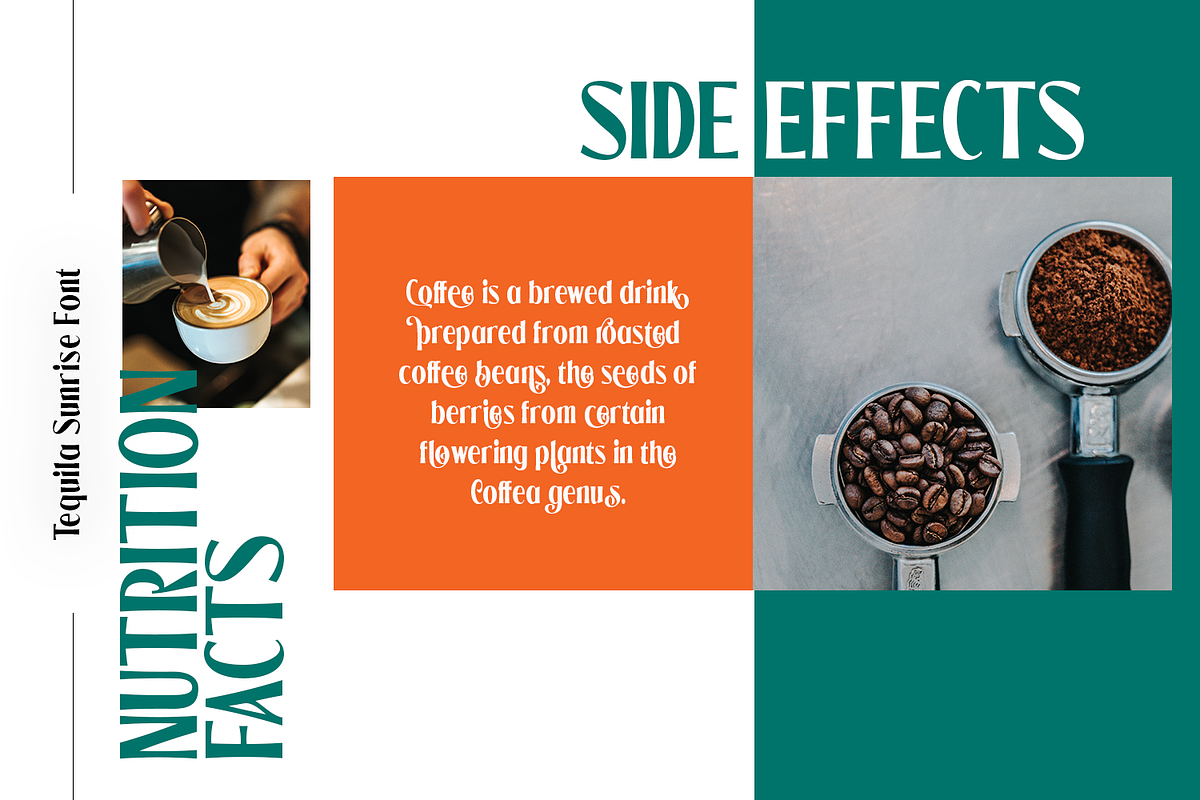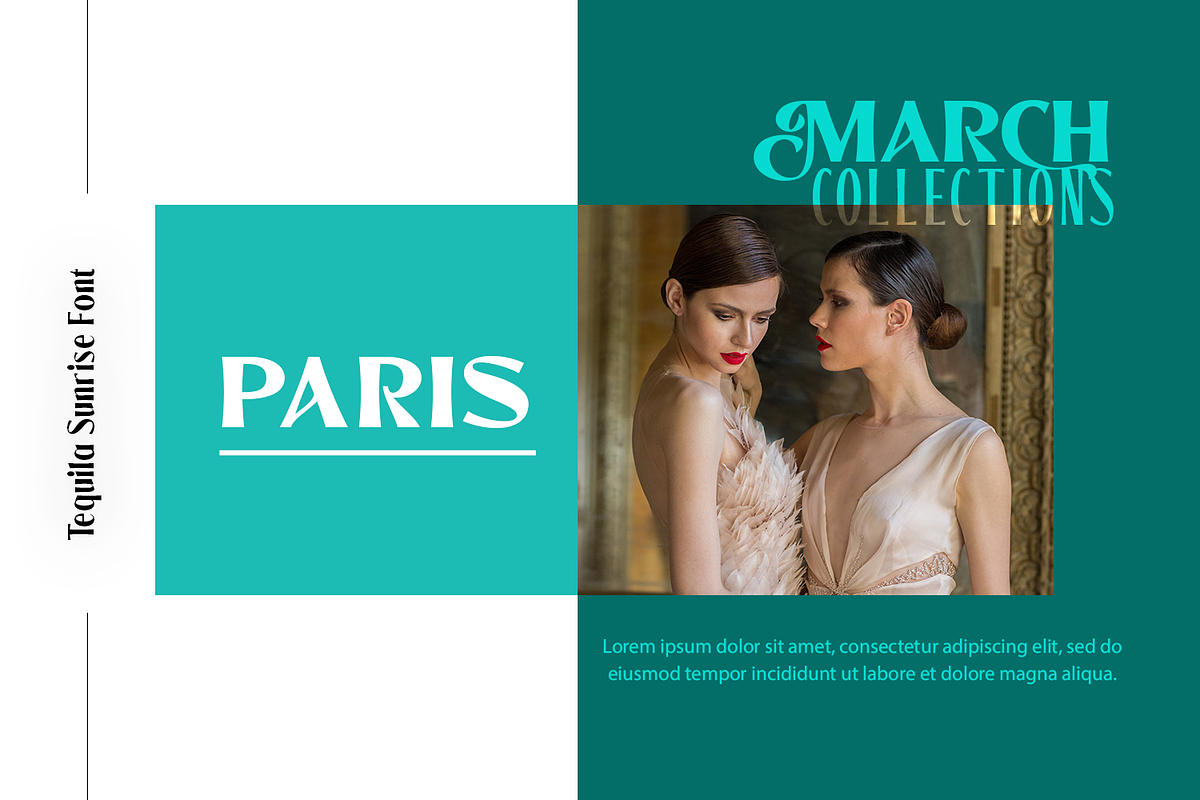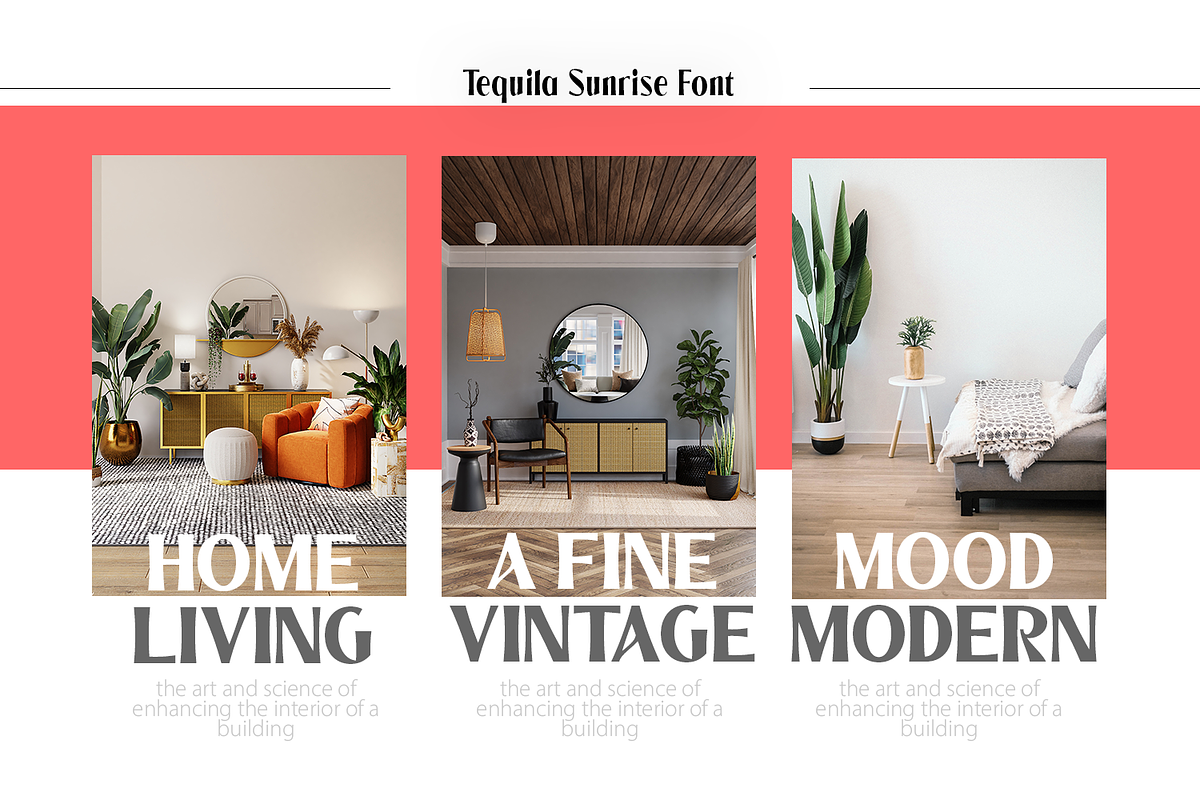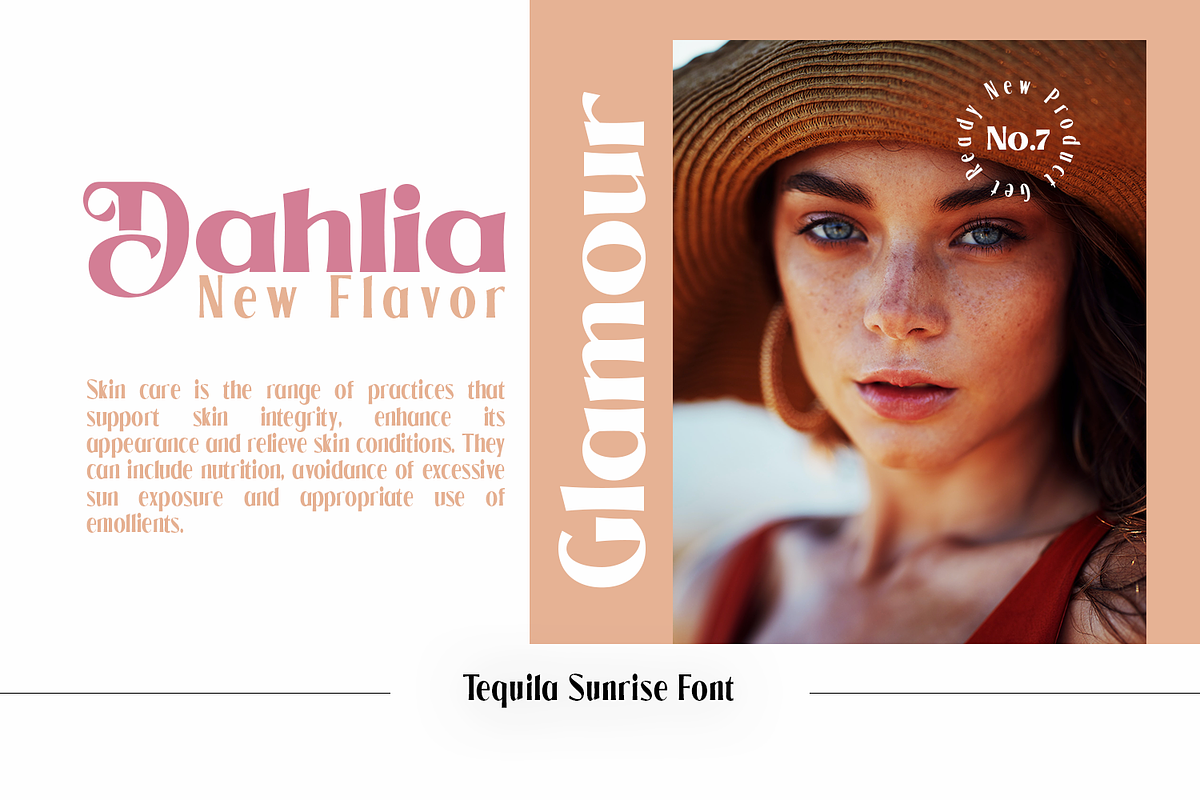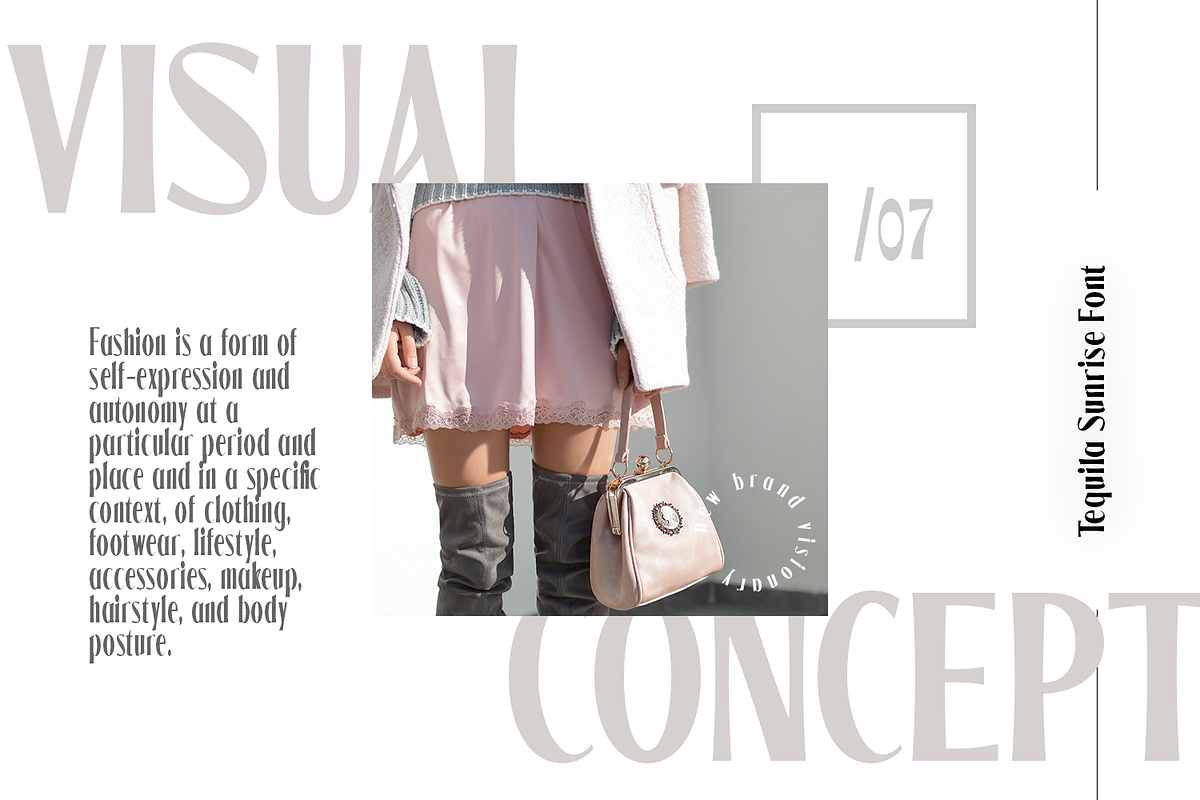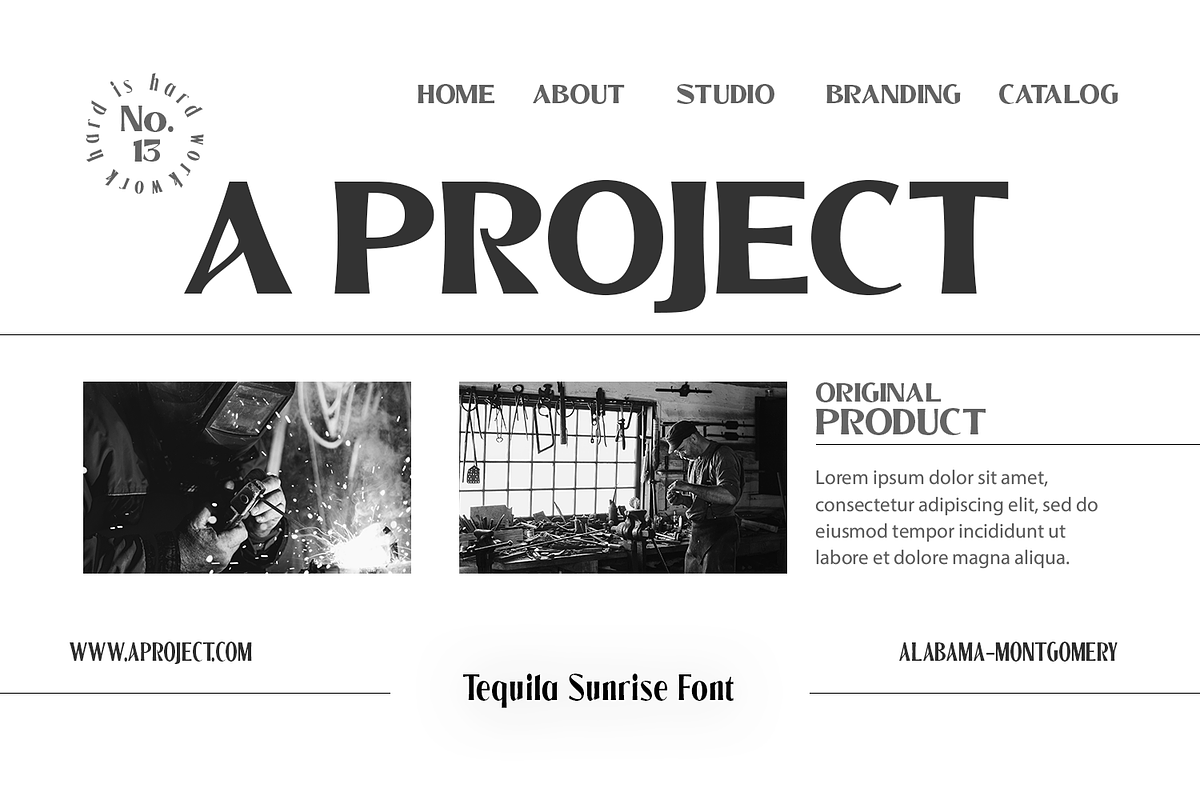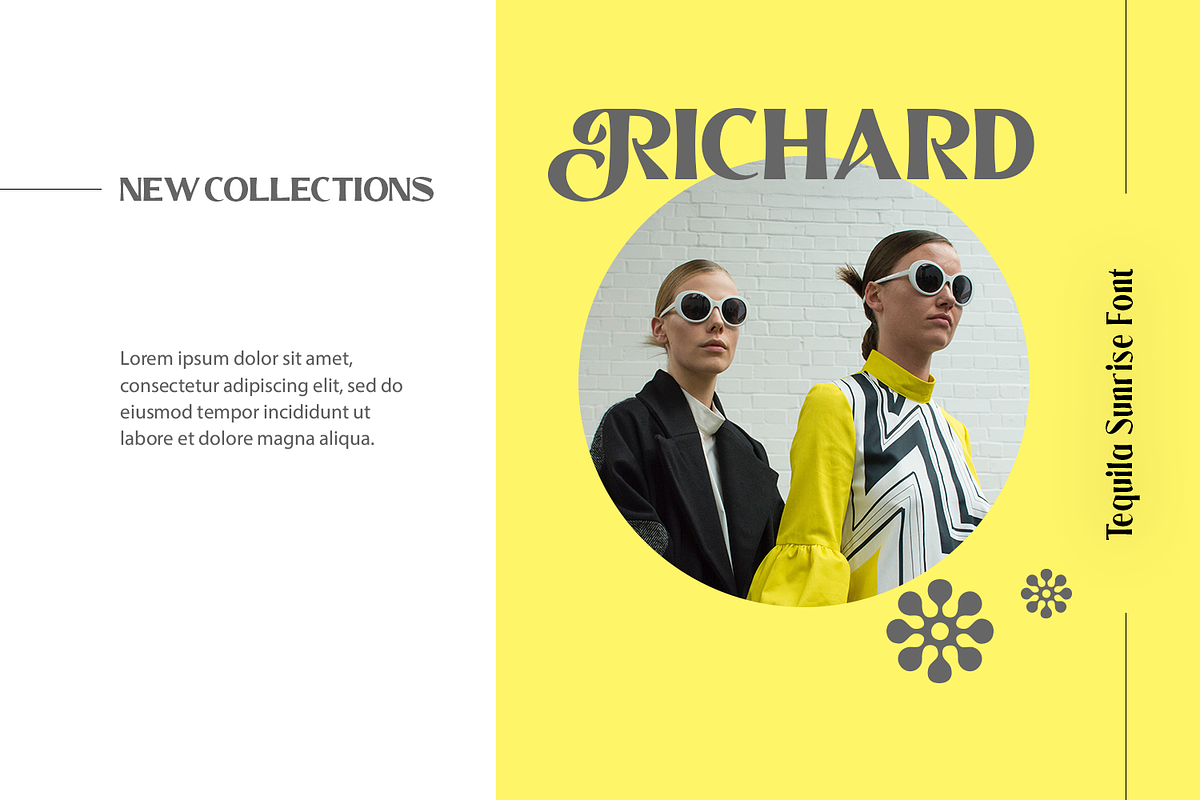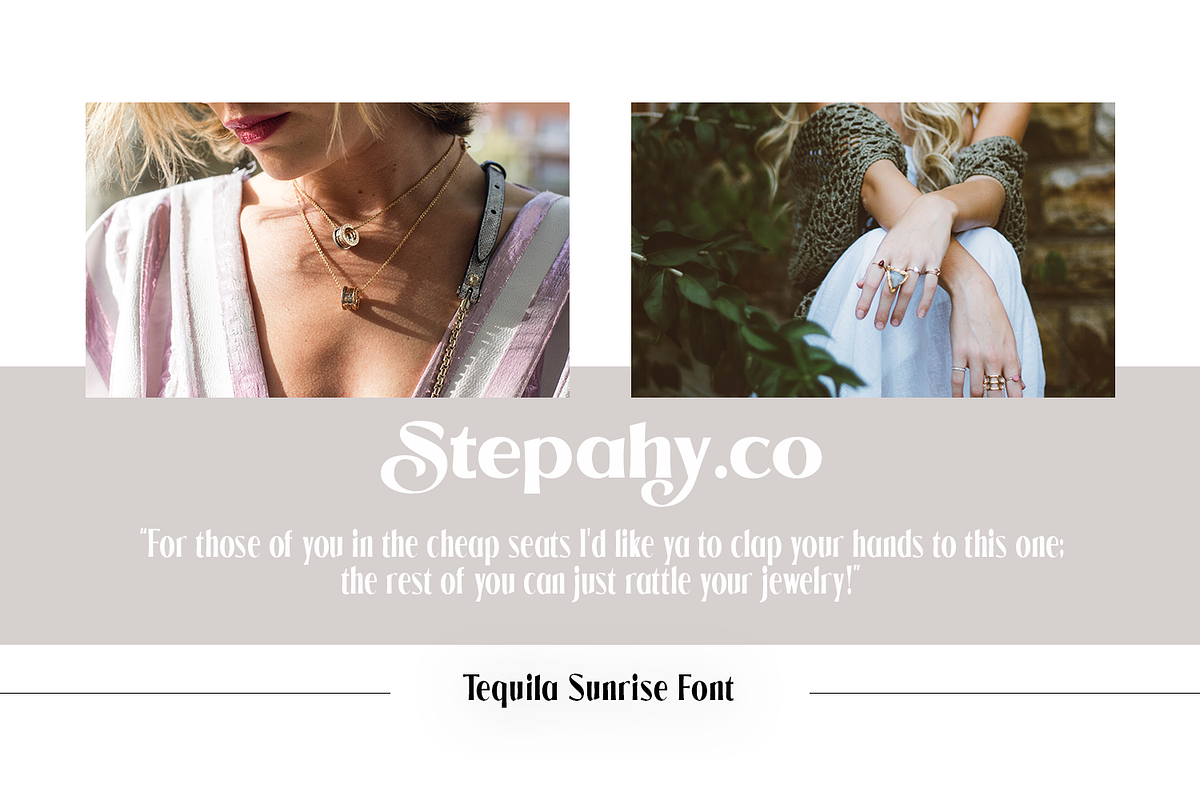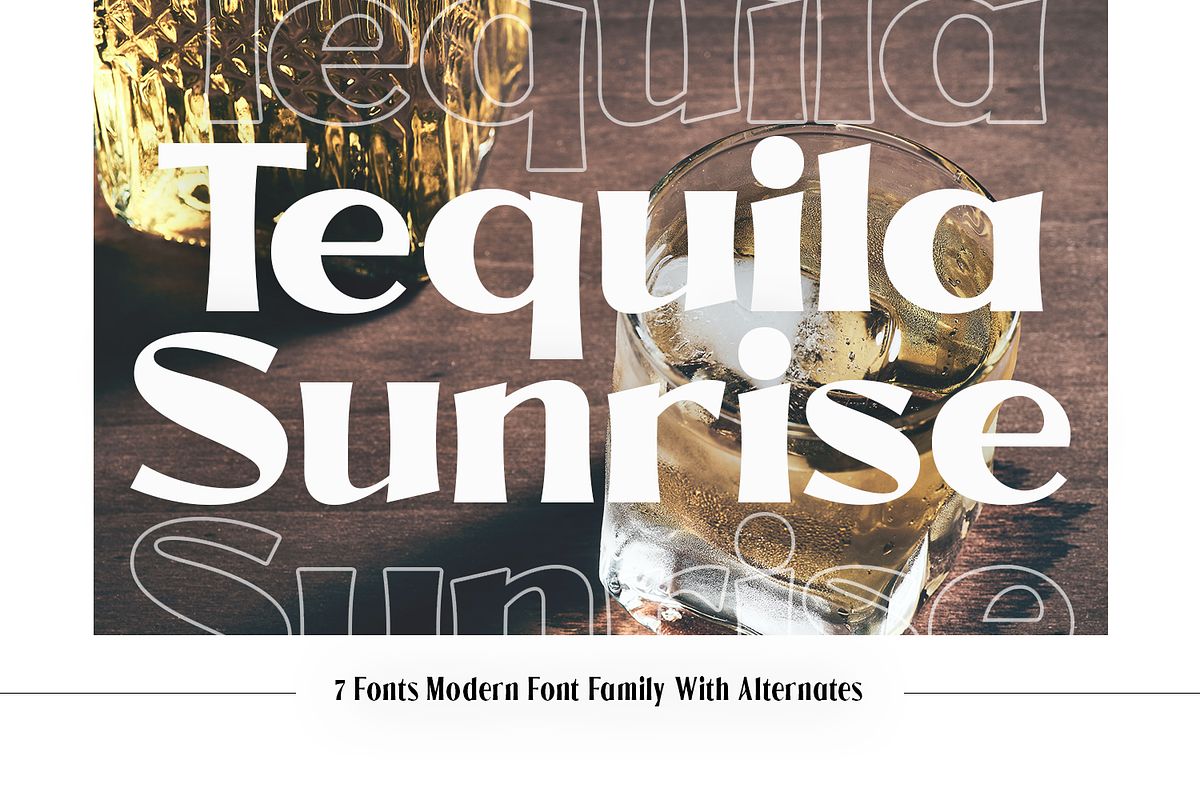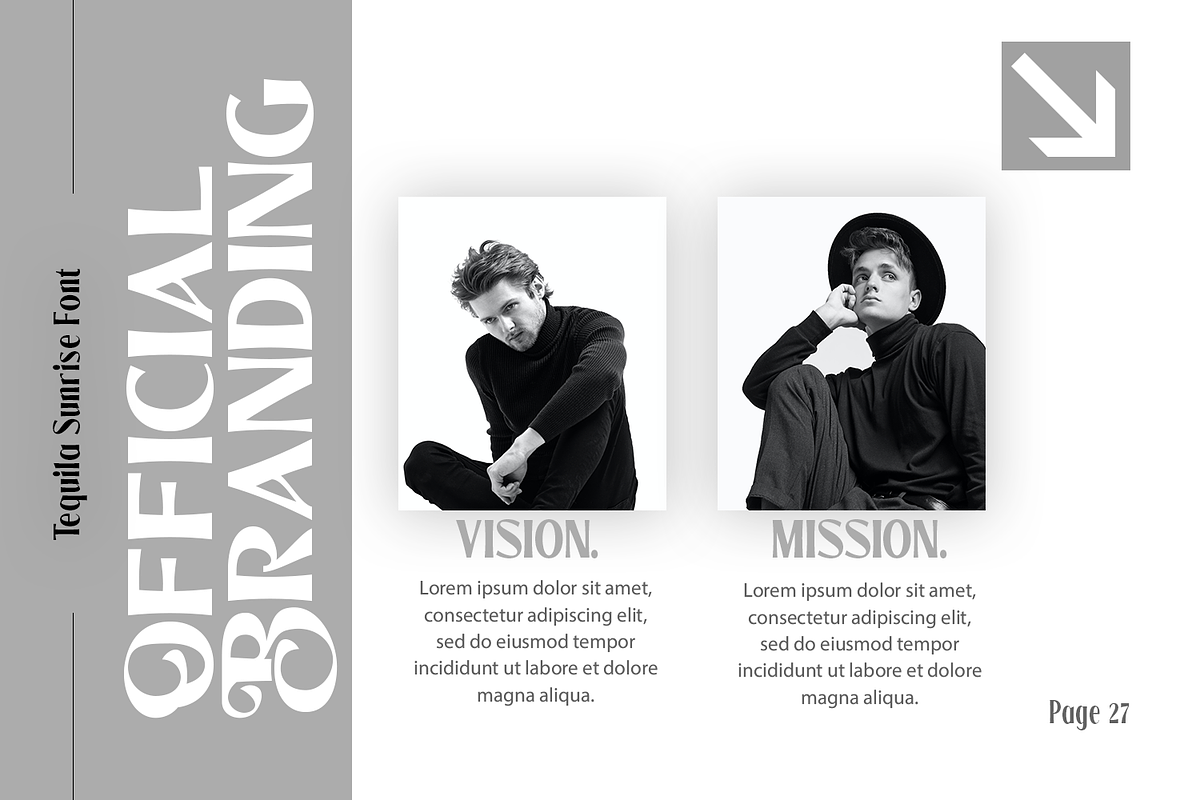
Tequila Sunrise
Introducing Tequila Sunrise, use this font for any branding, product packaging, invitation, quotes, t-shirt, label, poster, logo etc.